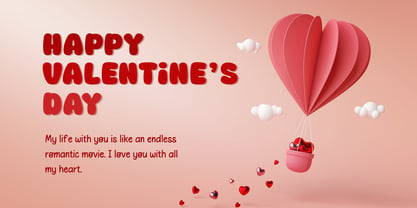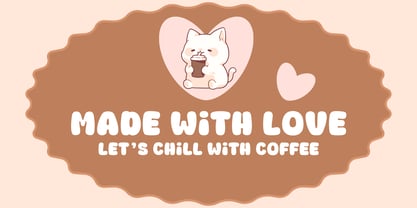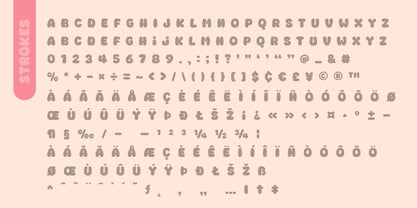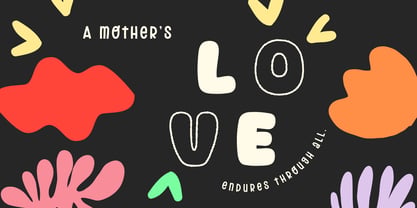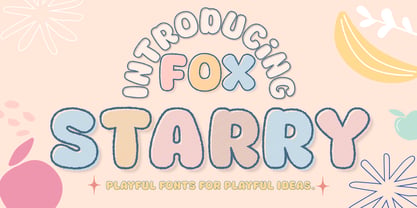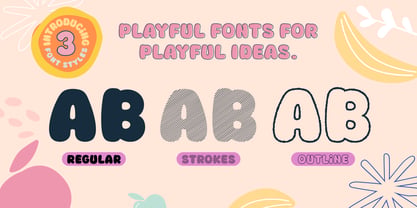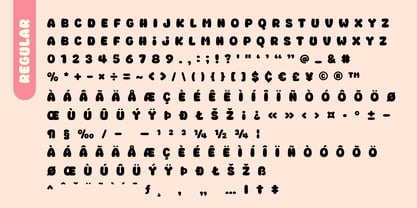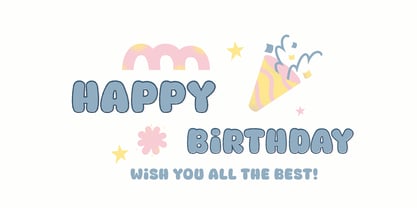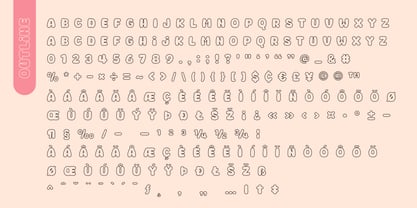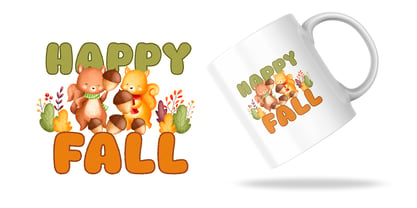
Fox Starry Outline
The Fox Starry Outline Font Family was designed by Rattana Rattanawan and published by Fox7. Fox Starry Outline contains 3 styles and family package options. More about this family
Fox Starry is a cheerful and fun display font designed to bring joy and creativity to your projects! With its bold rounded letters and hand-drawn charm, this font is perfect for playful designs that need a touch of warmth and happiness. This font comes in 3 unique styles: ⋆ Regular – clean, bold, and easy to use ⋆ Strokes – playful striped style for extra texture ⋆ Outline – fun outlined version for creative effects Fox Starry is ideal for posters, invitations, stickers, packaging, branding, children’s projects, social media content, and more. Wherever you want to add a lively and friendly vibe, Fox Starry will make your designs shine! ✨ Whether you’re designing kids’ packaging, logos, posters, or playful branding, Fox Swirly brings a pop of personality and nostalgic sweetness every time.